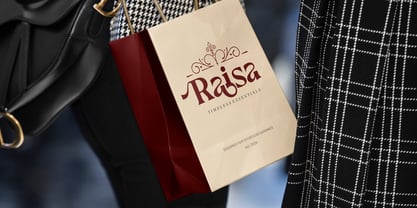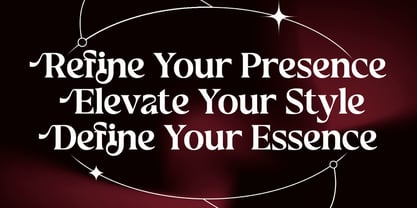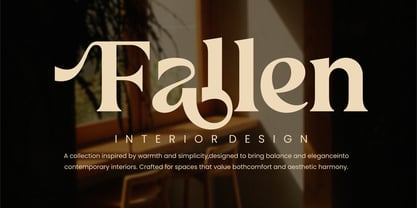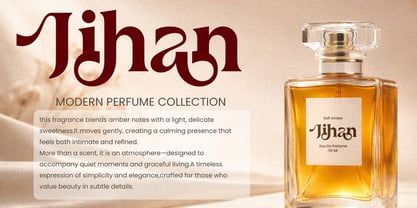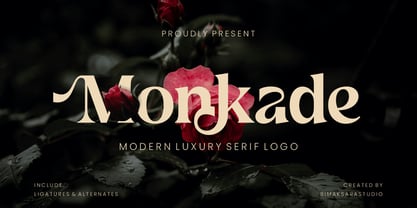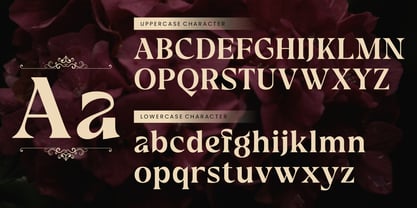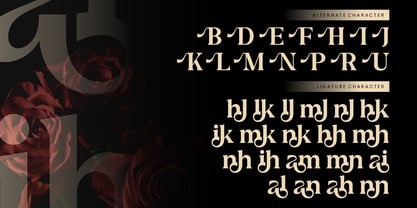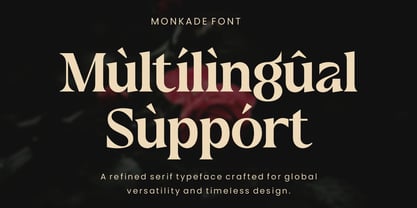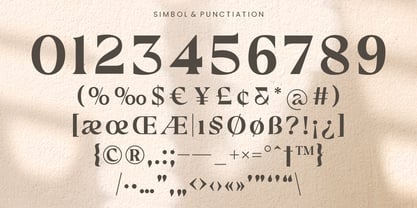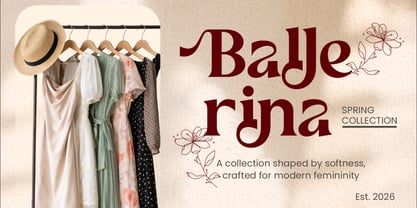
Monkade
by Bimaksara
The Monkade Font Family was designed by Nur Mokhamad Bismatulloh and published by Bimaksara. Monkade contains 1 styles. More about this family
Monkade – Modern Luxury Serif Font
Monkade is a modern luxury serif typeface designed to bring elegance, sophistication, and a timeless aesthetic to your visual projects. With refined letterforms and carefully crafted details, this font delivers a strong and distinctive presence for high-end branding.
Perfect for:
logos, fashion branding, editorial layouts, packaging, wedding designs, and social media content, Monkade combines classic serif structure with a contemporary touch.